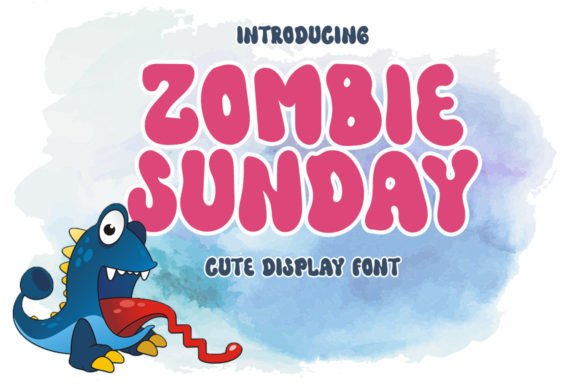
Embrace the captivating charm of Zombie Sunday; a display font that will ignite your creative spark! Every character dances with a playful innocence that will add a touch of whimsy to your designs, whether you're crafting invitations, branding materials, or creating unique website experiences. Its quirky and fresh aesthetic will leave an unforgettable impression, evoking a nostalgic yet contemporary feel. Dive into the world of Zombie Sunday and let your imagination soar!